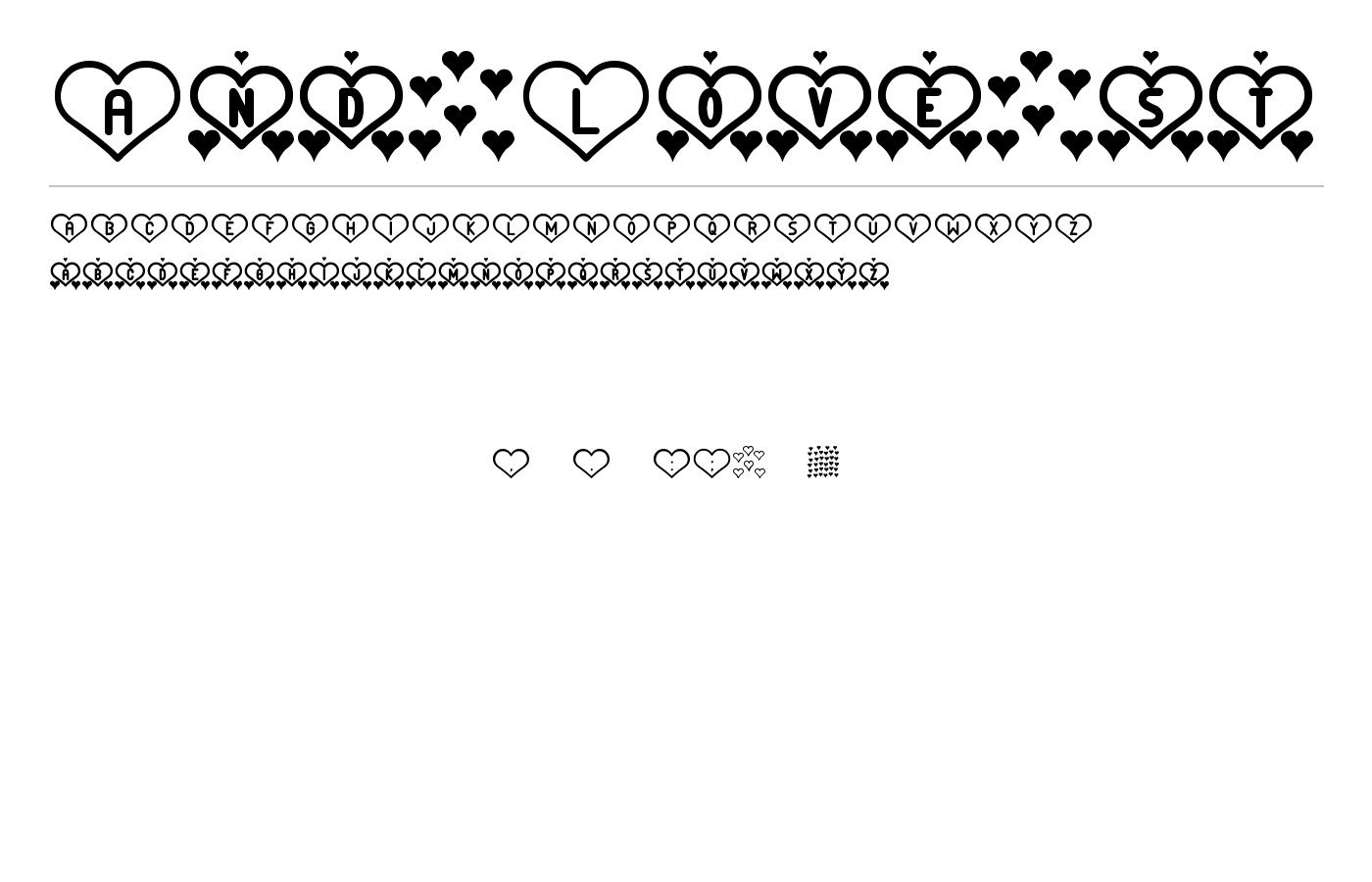
And Love st is a playful and decorative sans serif font where each uppercase letter is enclosed within a bold, heart-shaped outline, accompanied by smaller heart motifs that enhance its whimsical charm. This font's unique design and medium weight make it ideal for romantic or festive projects, including invitations, greeting cards, and children’s products, where a fun and loving atmosphere is desired. Its distinct heart-centric style brings a joyful, affectionate personality to any creative work needing a touch of sweetness and creativity.
And Love st Font